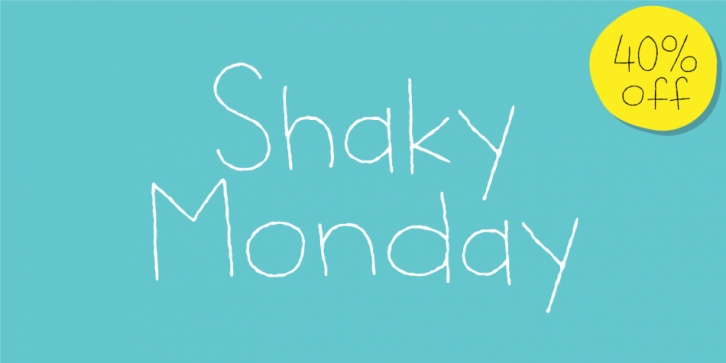
Designed by Jakob Fischer, Shaky Monday is a hand drawn and kids font family. This typeface has two styles and was published by Bogstav.
It’s Monday, the weekend’s just ended and there’s a looong way to friday. But let’s get things shaking, even though Monday is considered the worst day of the week (by many, but not all, people!)
I like Mondays, that’s why I made this font - in order for you to have a great day using this comic thin lined party font!
Fun fact: This font was finished on a Tuesday! :)